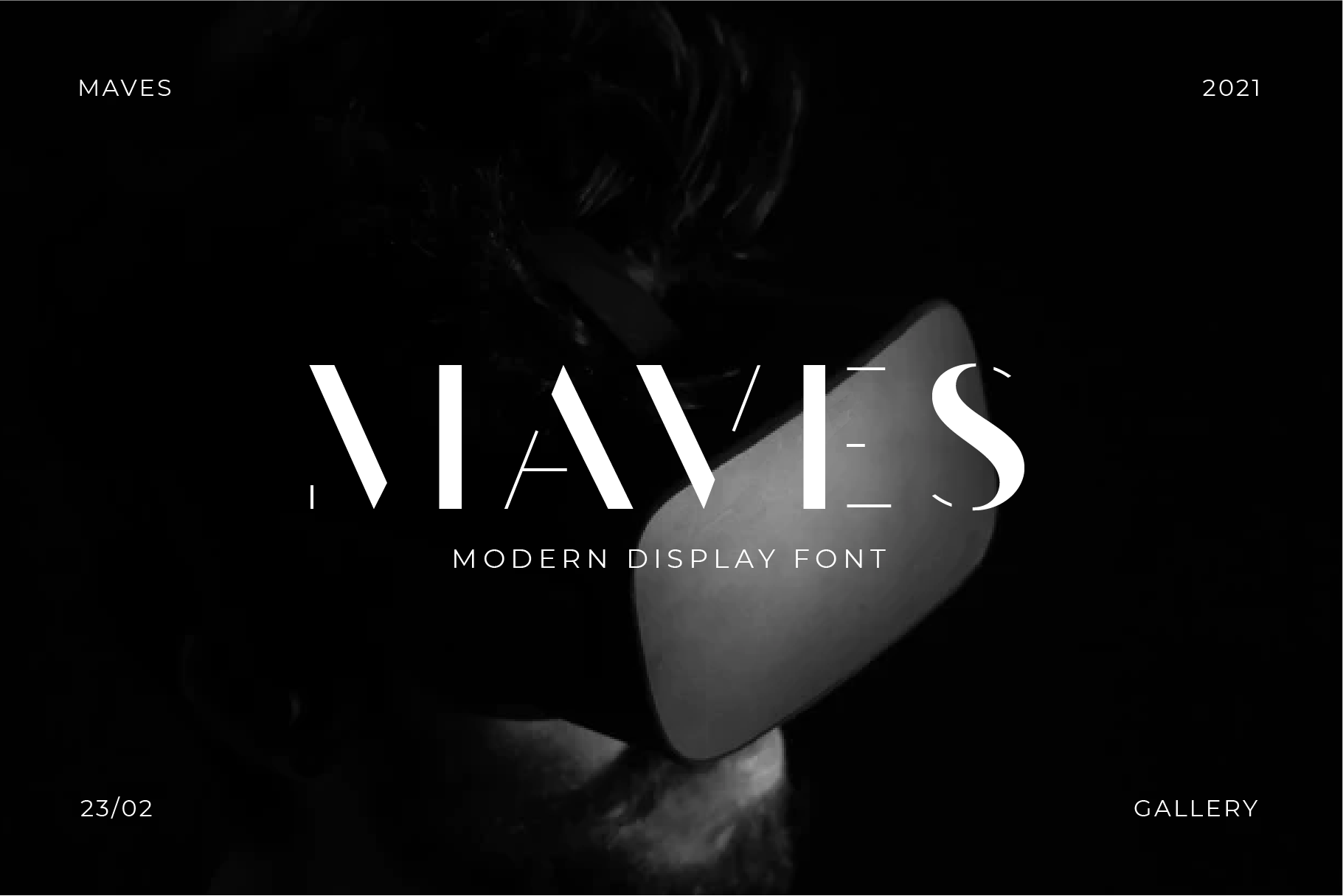
Maves Modern Display Font
Maves is a modern and elegant font designed with a unique futuristic touch. Perfect use for classy visual brand identities such as logos, headlines, titles, labels, websites, stationery, business cards, or any advertising purposes.
- Modern all caps fonts